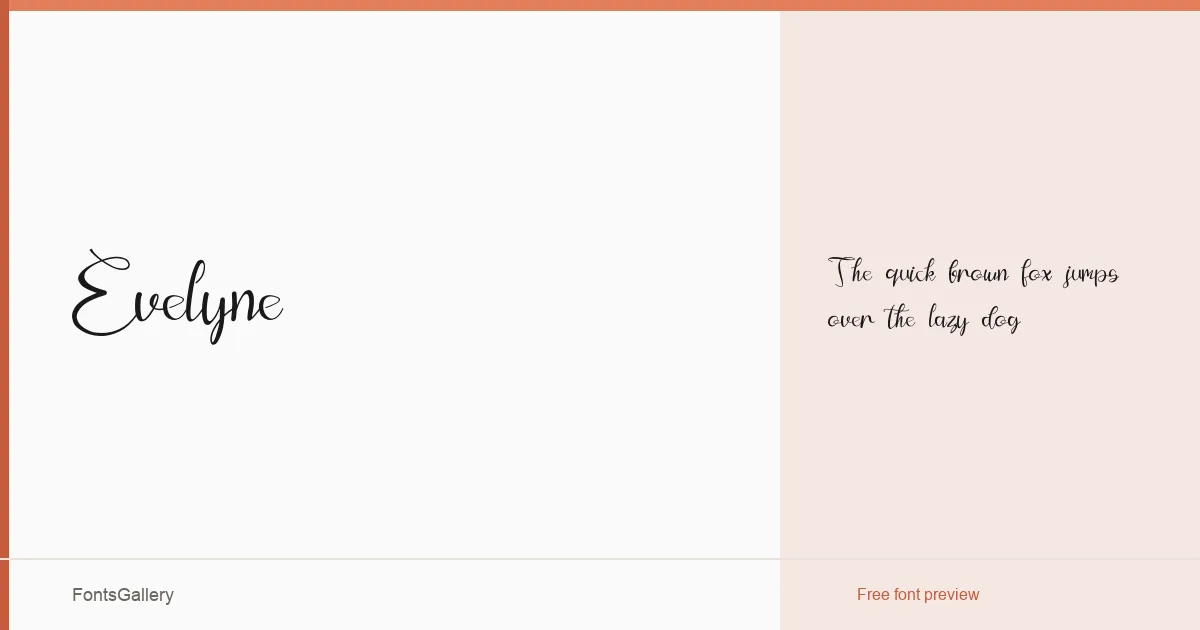
About Evelyne Font
Evelyne is an elegant script typeface designed by Ahmad Afandi, crafted to bring a sense of romance and timeless sophistication to any creative project. With its graceful letterforms and classic sensibility, it strikes a refined balance between expressive personality and polished charm. Evelyne is an ideal choice for designers seeking a typeface that communicates beauty and heartfelt emotion.
Evelyne falls within the script category, featuring flowing, hand-crafted letterforms that exude elegance and a romantic, classic aesthetic. Each character is designed with smooth, fluid strokes that connect naturally, evoking the feel of fine calligraphy. The overall composition lends itself to a luxurious and emotionally warm visual tone that feels both timeless and refined.
Evelyne shines brightest in applications such as wedding stationery, invitation cards, greeting cards, logos, and branding materials where an elegant and romantic impression is paramount. Its expressive script style makes it especially well-suited for luxury brand identities and celebratory designs. For a harmonious pairing, consider combining Evelyne with Aresink for a complementary script feel, or with Helvetica for a clean, modern contrast that lets Evelyne take center stage.